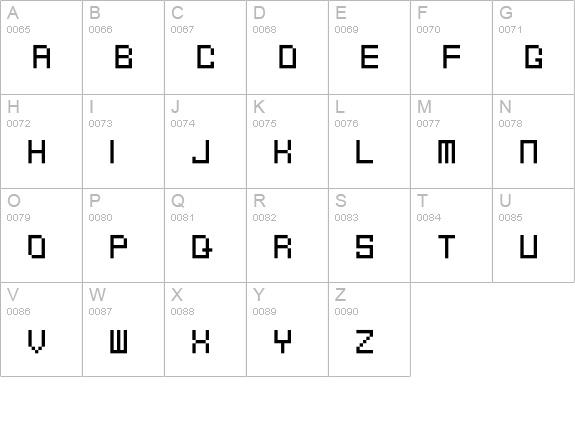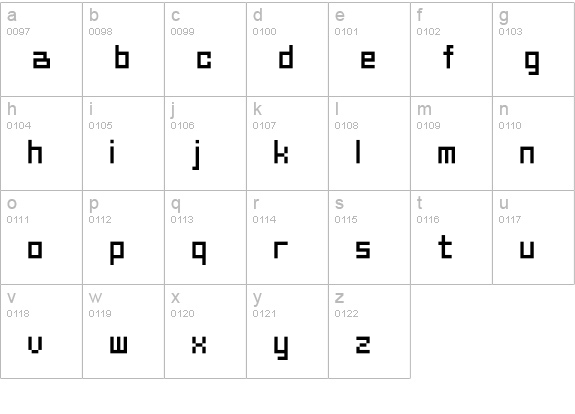
nontoxic_jalanche_2 Font Details
Introducing nontoxic_jalanche_2 font, a versatile and stylish typeface perfect for all your design needs. This unique font exudes elegance and sophistication with its sleek lines and modern aesthetic. With a wide range of characters and glyphs, nontoxic_jalanche_2 is suitable for various projects, from branding to editorial design. The best part? nontoxic_jalanche_2 font is completely free to download at FontsMarket.com, making it accessible to everyone looking to add a touch of class to their creations. Whether you're designing a logo, crafting a poster, or creating a website, this font is sure to elevate your work to the next level. Don't miss out on the opportunity to enhance your designs with the beauty and simplicity of nontoxic_jalanche_2 font. Download it today and let your creativity soar!